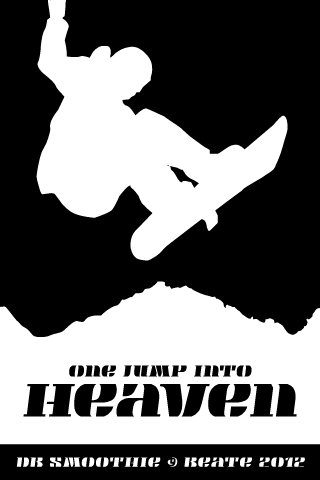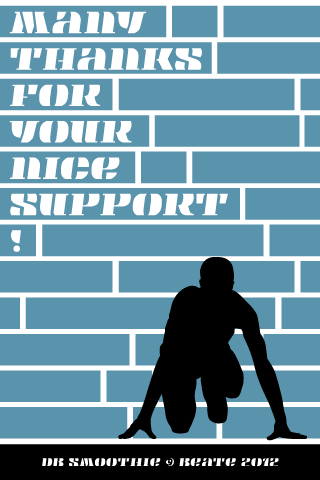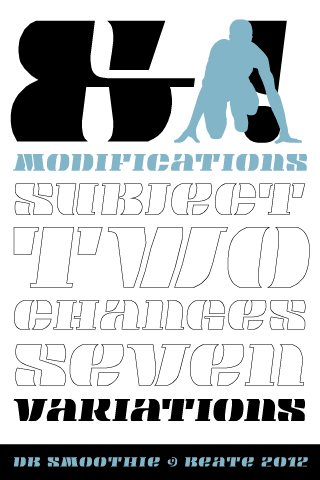
Another masterpiece. A minor issue: the gaps of a,o,g are significantly smaller than the of the rest. 10/10
Great entry! It has your recognizable clean and elegant style. With the cap height containing some glyphs and 'cutting off' the top of others, there are possibly two fonts in this. The mix however, works wonderfully well! 10/10
Stencilicious! 10/10
Wow! Double back flip. I love it..... although the 'W' seems to have a different colour. I don't know what to suggest, as your style is sublime.
Smooth and flawless. The R and the numbers are delicious. 10/10 & instant fave.
Although the style is sublime and the execution exquisite, I think there is some visual inconsistency here that is making it not seem like a whole. Specifically, the chopped-off letters look like they are larger in size (even after the chopping) and blacker than the rest. It might just be an optical illusion, but in appearance, all glyphs must look to be similar weight and height, even if they have to be metrically inconsistent. With your proven skill and mastery, I'm certain you can work on those and correct them.
Oh, and the vertical break in the S is disturbing.
Yes. Much better. Still room for improvement, though.
In my next reincarnation, I want to have your ability to visualize.
How does anyone compete with this? Anyway, this is me saying how awesome your work is!
11/10. Amazing work!
Bravo, once again!
@beate: Your relentless pursuit and attainment of typographic excellence deserves applause and accolades. With such a subtle eye and fine ability to highlight what makes each glyph unique in your sets while maintaining their synergy and coherence, it makes sense that you work almost exclusively at high resolution. A designer such as yourself flourishes with maximum control over the outlines!
Yet you leverage other creative constraints by fontstructing, for example the limited selection of oblique angles on tap. You use this as a point of departure and return. This leads to exciting characters like db Smoothie’s K.
How curvaceous and straight lines can meet up and dance beautifully to create glyphs together is a hallmark of your typography. This quality is distinctly fontstruct.
This is one of the most unique stencil-style typefaces I've ever seen. It has that seventies fat-face display lettering revival feel to it.
You had left the low apostrophe high, not low